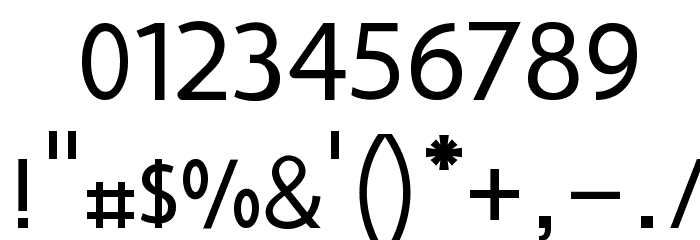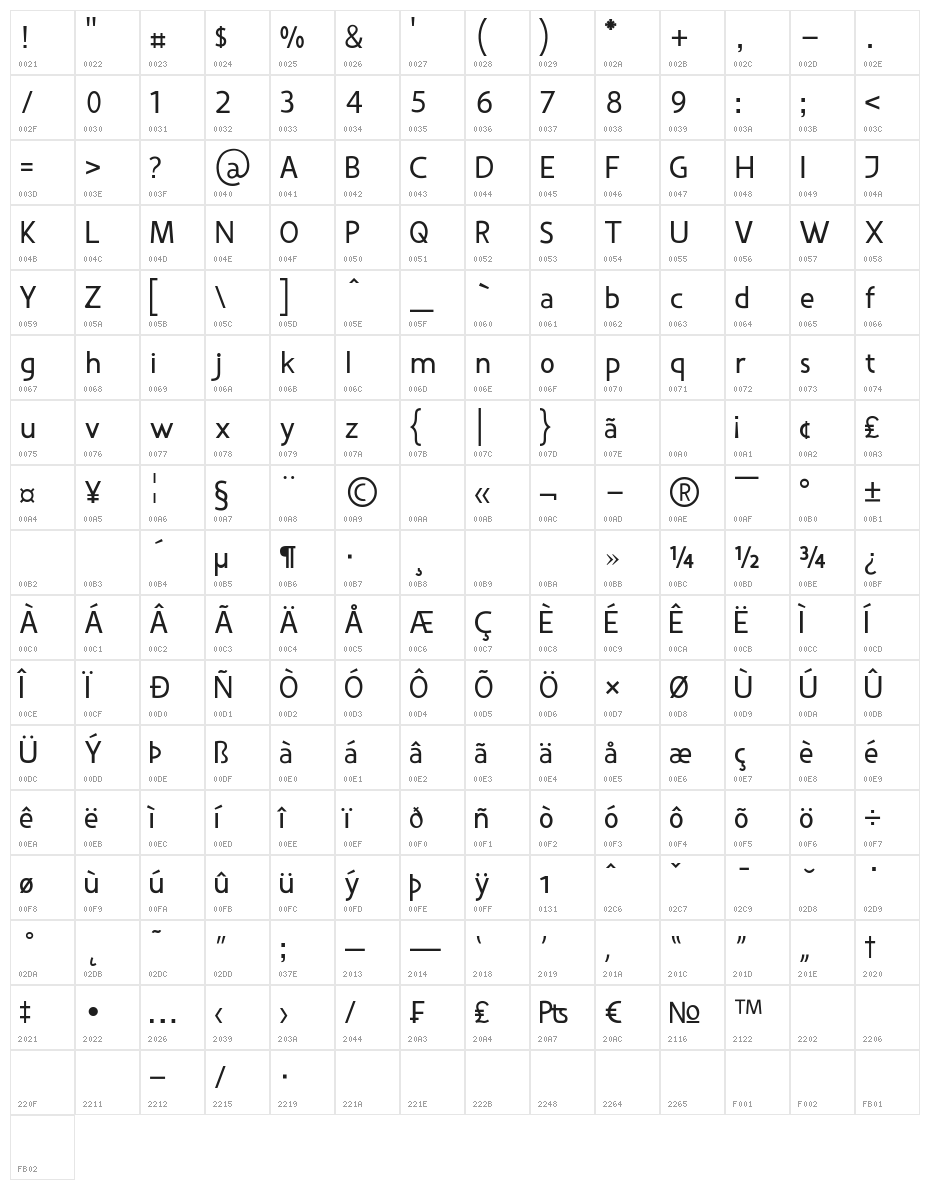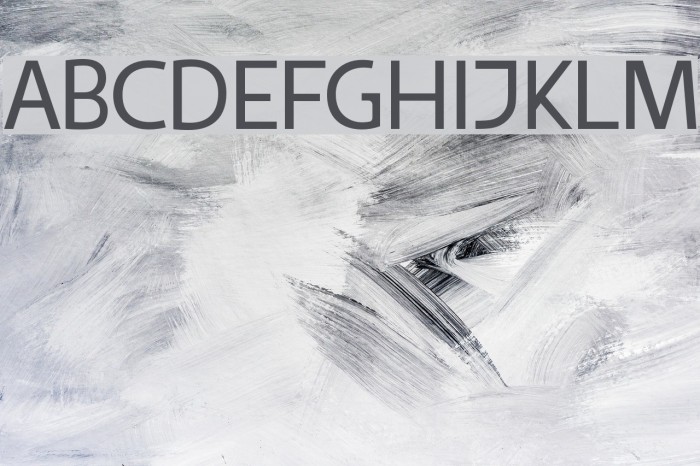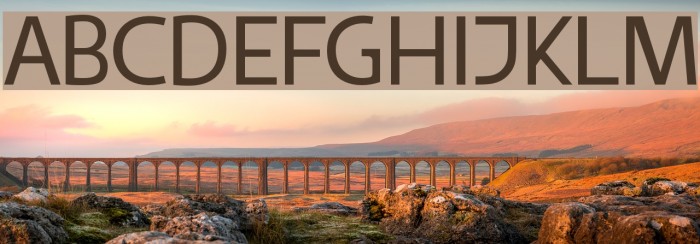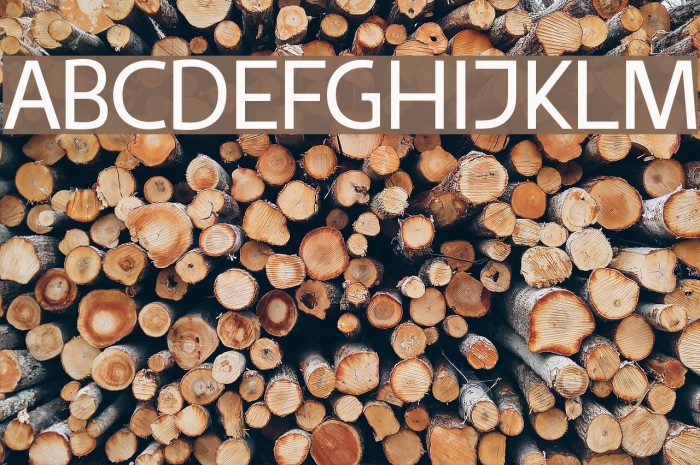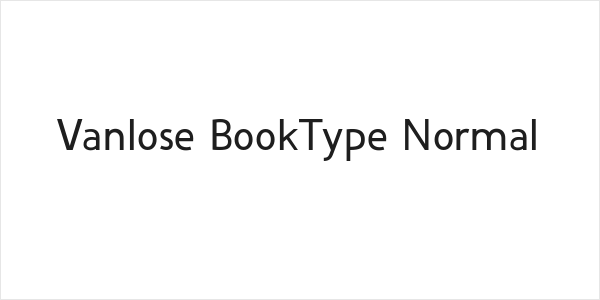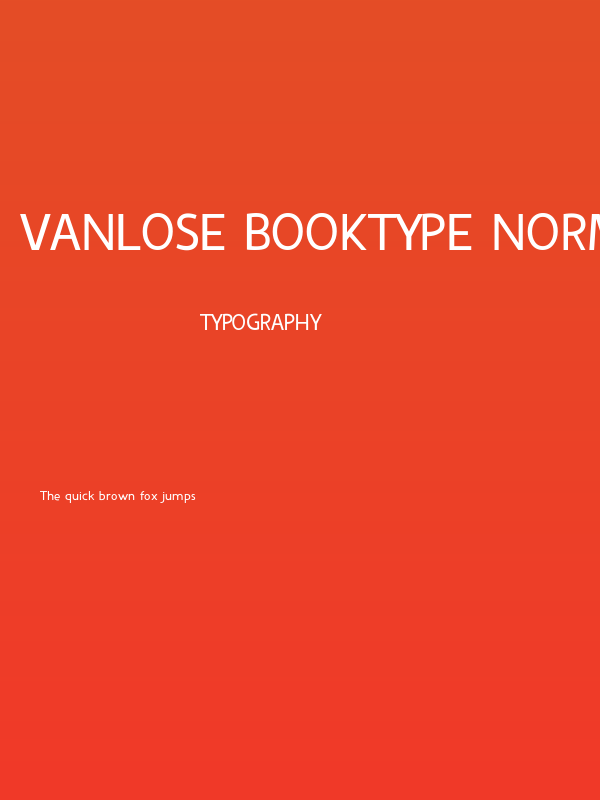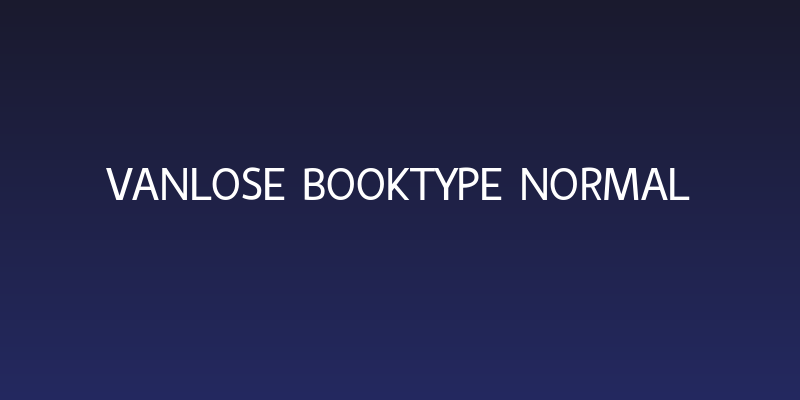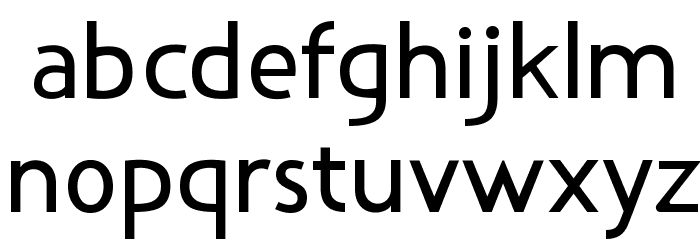
Vanlose BookType Normal Font
Vanlose BookType Normal Description
This font features a clean and modern sans-serif design with a balanced structure. The characters are well-proportioned, offering a harmonious appearance that enhances readability. The uppercase letters are bold and assertive, while the lowercase letters maintain a friendly and approachable look. The numerals are clear and distinct, making them suitable for various applications. Special characters are designed with precision, ensuring consistency throughout the typeface. The overall style is versatile, making it suitable for both digital and print media.